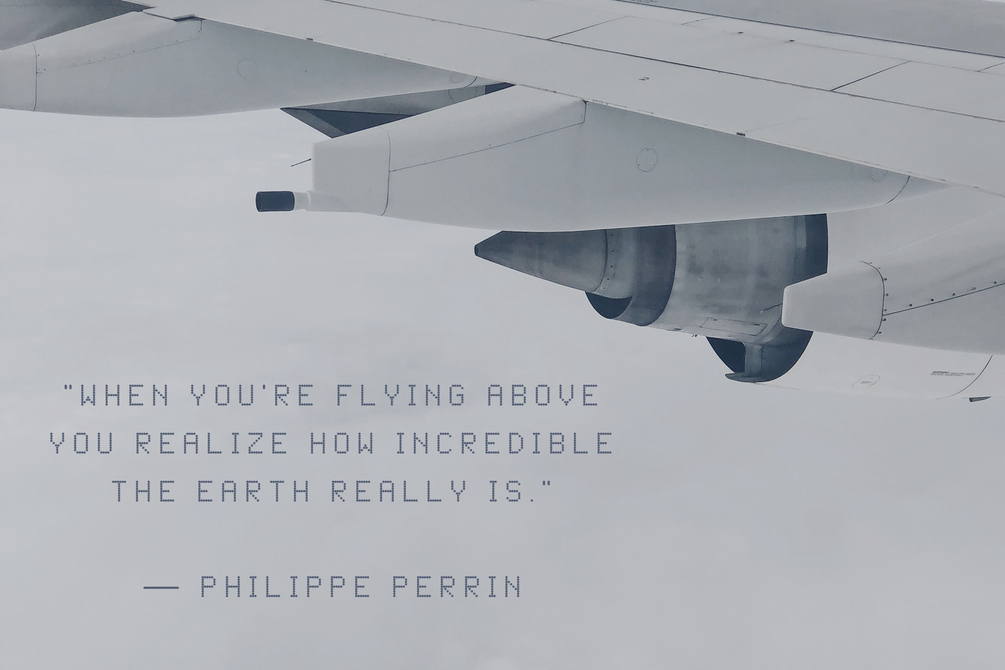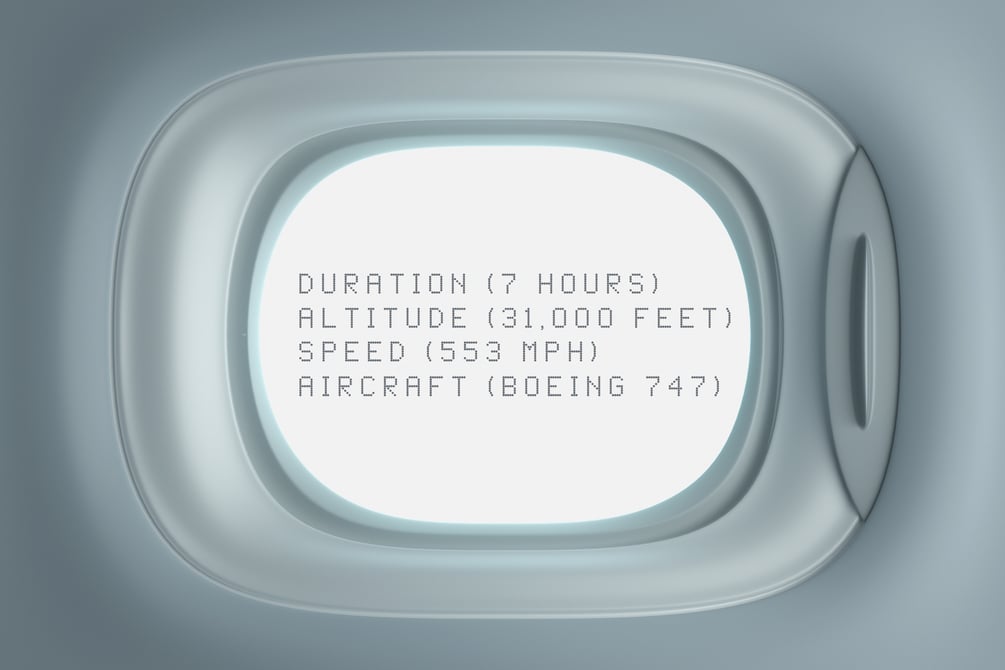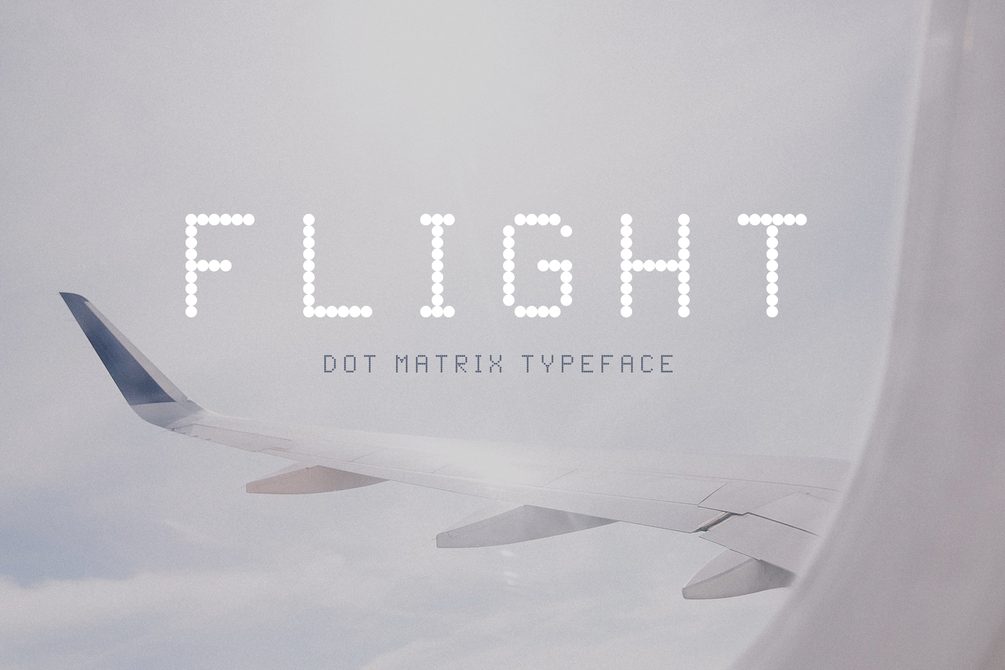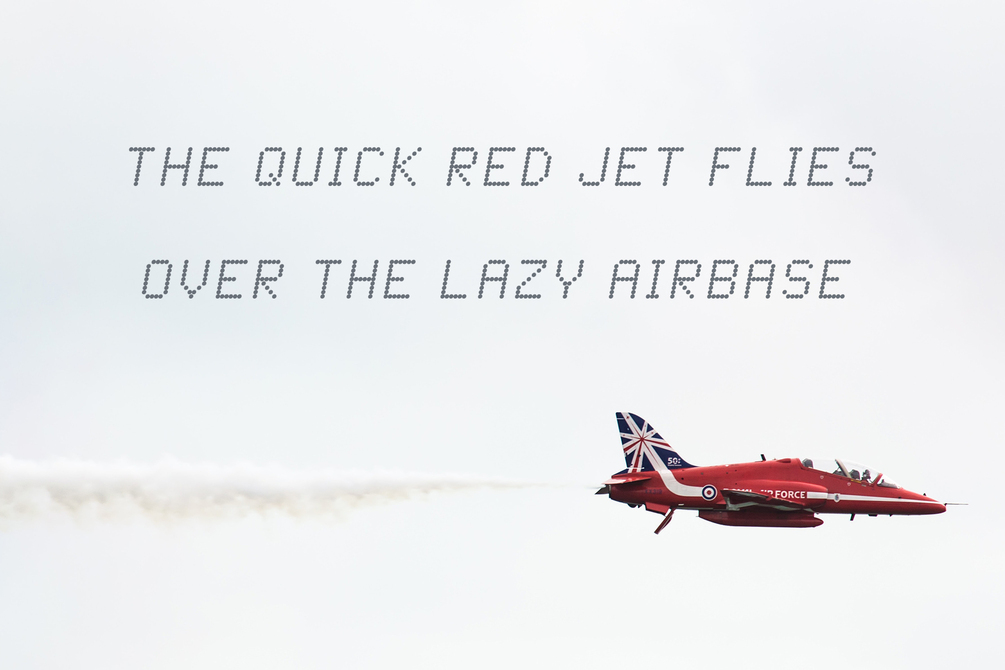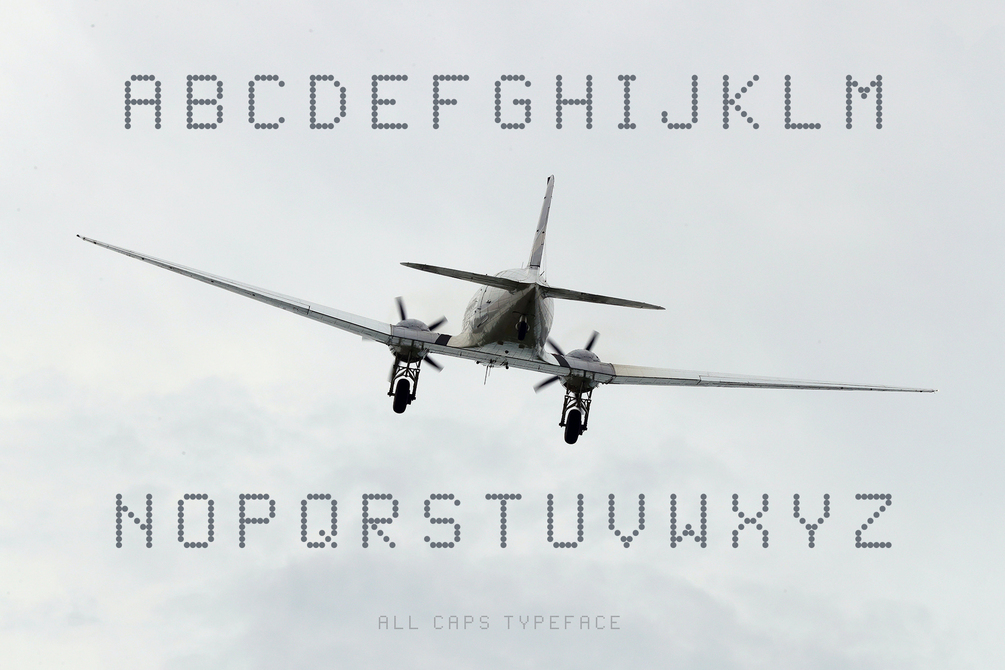
Flight - Dot Matrix Typeface
Flight is a dot matrix typeface ideally suited for editorial and publishing, logo, branding and creative industries, poster and billboards, software and gaming as well as web and screen design. Its letterforms are made up of tiny grid-based dots.
This typeface is beautiful, legible, and pays homage to dot matrix printers still in use at airports around the world.